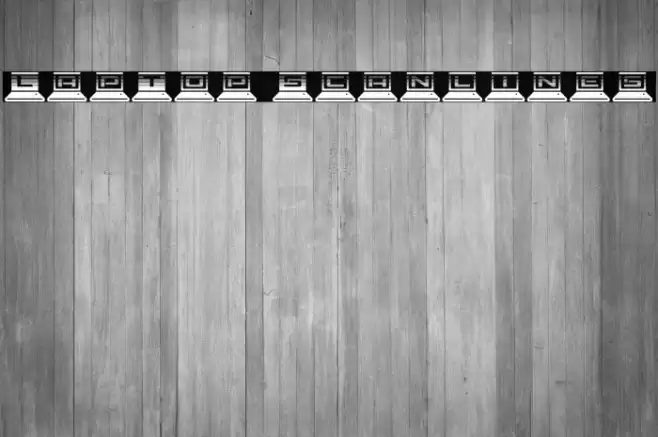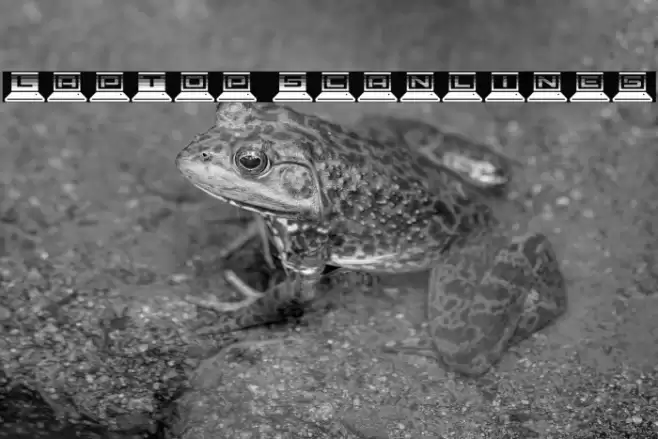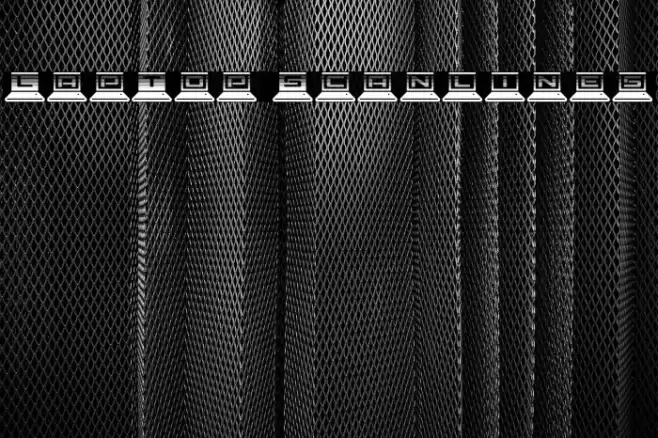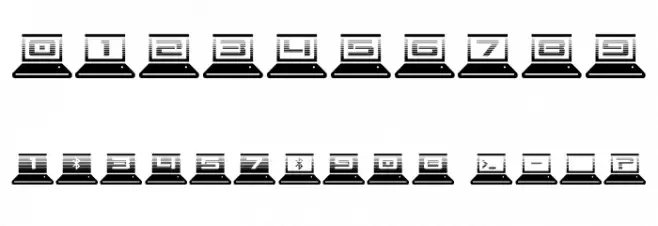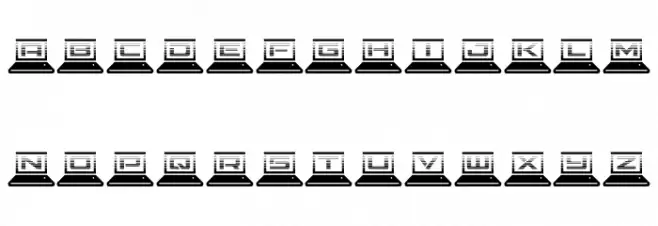
LapTop Scanlines Font
LapTop Scanlines Description
This font features a unique design where each character is integrated into a stylized laptop icon. The letters and numbers are composed of horizontal lines, creating a scanline effect reminiscent of retro computer screens. The characters are bold and distinct, with a futuristic and technological aesthetic. The uppercase and lowercase letters maintain a consistent style, while the numbers and special characters follow the same design principle. This font is ideal for projects that require a digital or tech-inspired look, offering a visually striking and thematic appearance.
A tech-inspired font with characters integrated into laptop icons and a scanline effect from Decorative fonts.
- Font: LapTop Scanlines
- Proposed Projects: Ideal for tech-themed posters, digital art, video game graphics, and branding for technology companies.
- Overall Style: Futuristic, Tech
- Use Case: Logos, Headlines, Digital Art